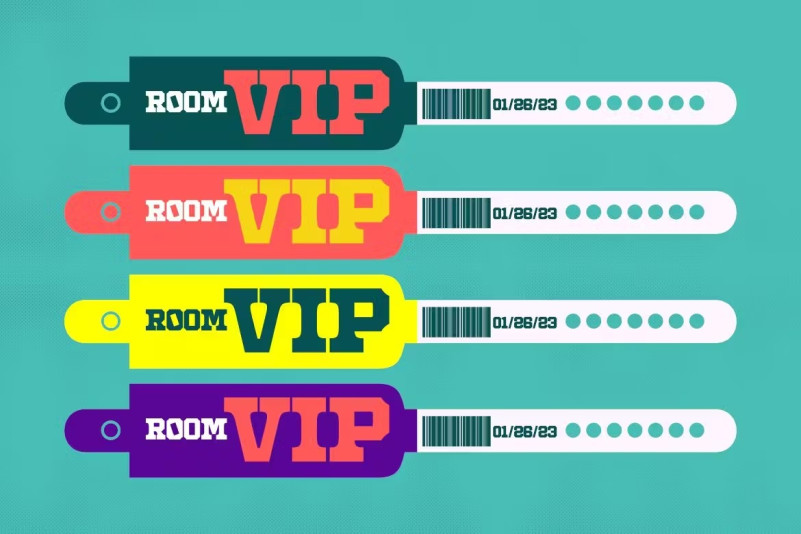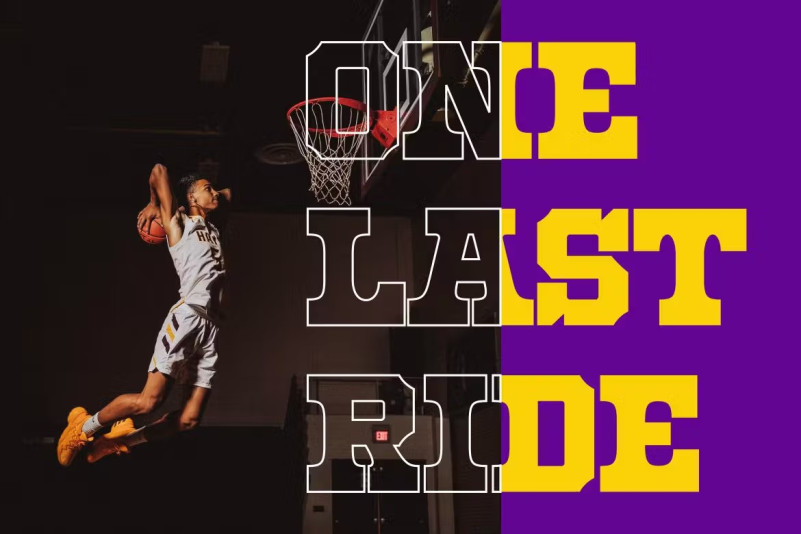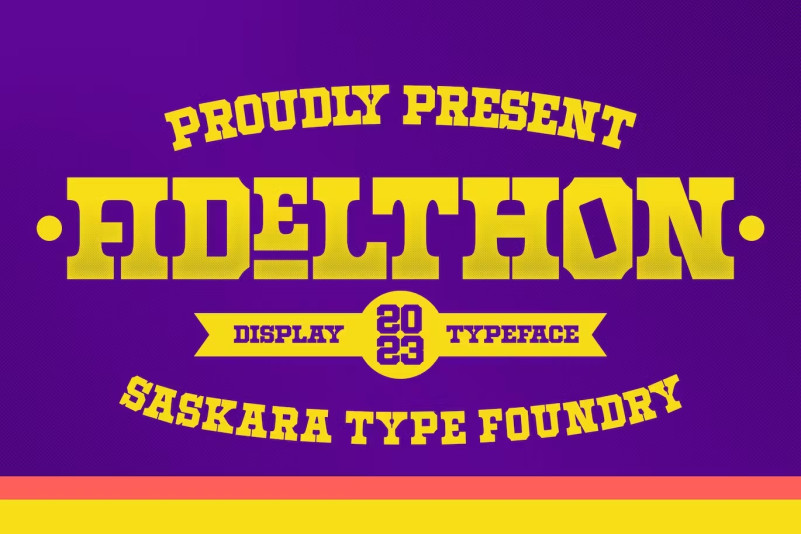
Fidelthon Font
Fidelthon Font is a modern style serif font with a vintage feel, strong and dynamic. This font is great for posters, basketball artwork, labels, brochures, signs, ads, t-shirt design, tattoo parlors, barbershops, craft brands, anything. regarding modern style, vintage style, retro style, etc.